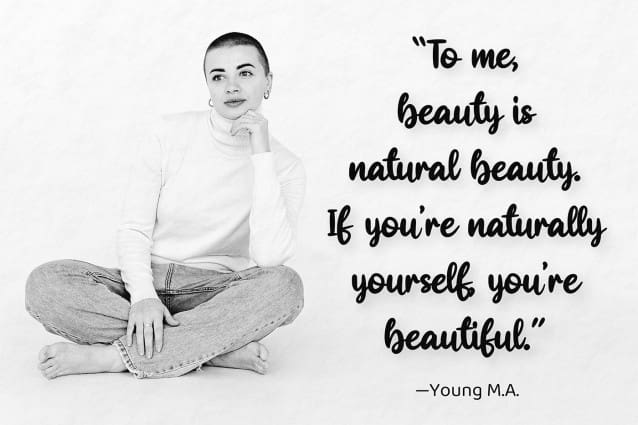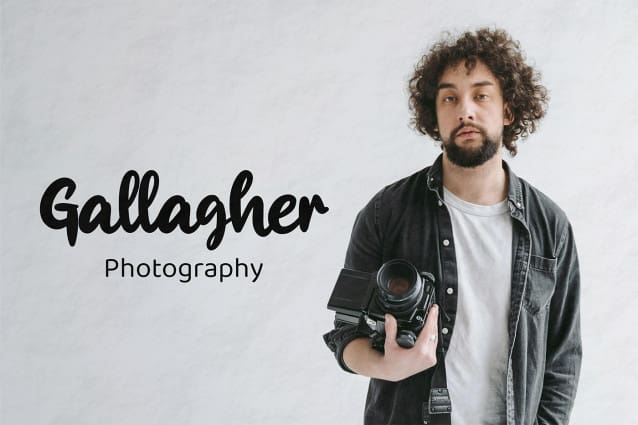
Basic Lettering Free
Basic Lettering Free font is natural handwriting, bringing a sense of authenticity and tranquility to your designs. It is perfect for wall displays, wedding invitations, social media post logos, advertisements, product packaging, product designs, labels, photography, watermarks, invitations, stationery, and any project that requires handwritten taste.
| Classification: | Handwritten Fonts, Script Fonts |